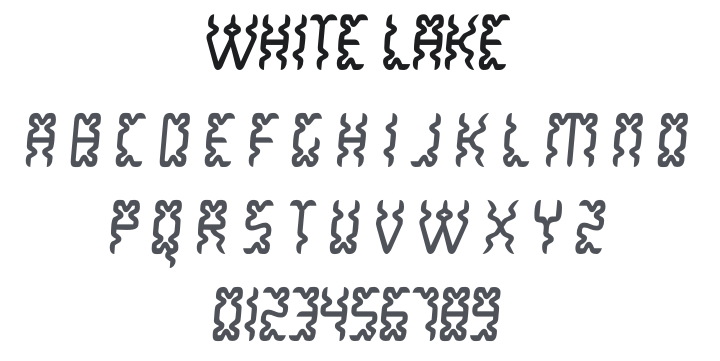
White Lake Font
About White Lake
White Lake is a bold, all-caps display typeface where every letterform is constructed from a single continuous squiggly, worm-like stroke — each character built entirely from tight curling noodle shapes that wriggle and loop to form recognizable letters. The result is uniquely organic and hypnotic. Perfect for ramen branding, Japanese food design, novelty posters, quirky editorial headlines, and any project needing a playfully bizarre, noodle-inspired personality.